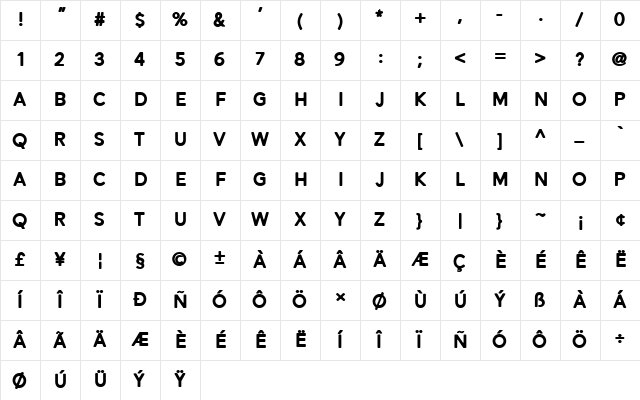
Alesand Round ExtBd Regular
| Designer | Solidtype Studio |
Design Context for Alesand Round ExtBd Typeface
Alesand Round ExtBd softens its letterforms with rounded terminals, giving it an approachable, friendly quality that works well in consumer-facing and digital contexts.
A natural fit for tech startups, health and wellness brands, children's products, and friendly consumer apps.
Font Pairing: Pairs well with a rounded or humanist sans for body copy, maintaining the friendly tone without relying on Alesand Round ExtBd to carry extended reading.
Pro Tip: Pair Alesand Round ExtBd with a geometric sans for a balanced system — the rounded softness works as a warm counterpoint to harder-edged companions.